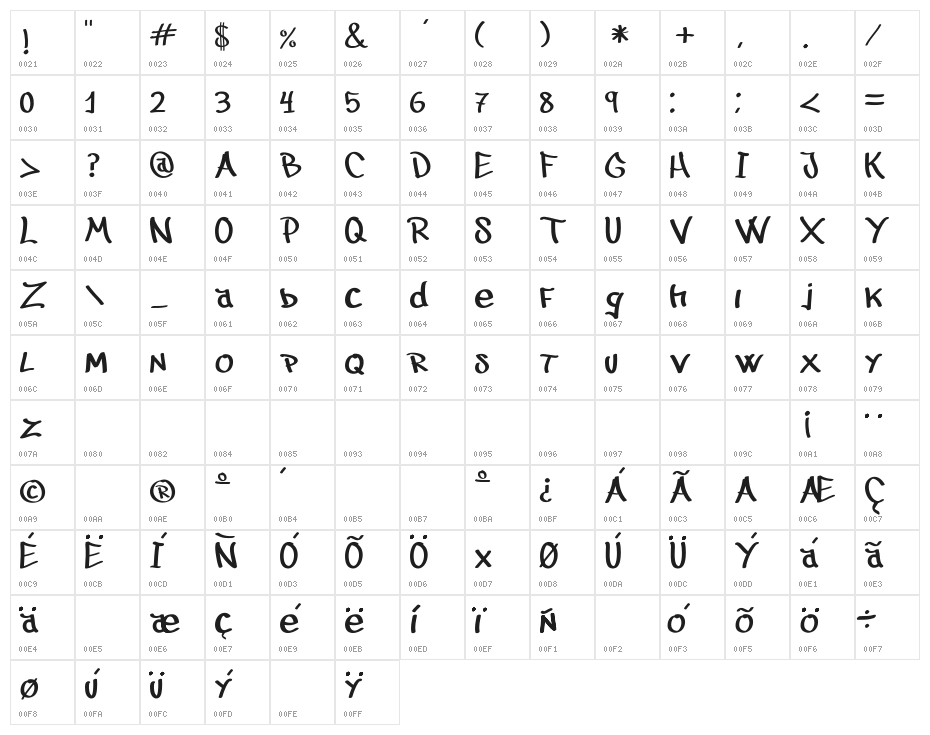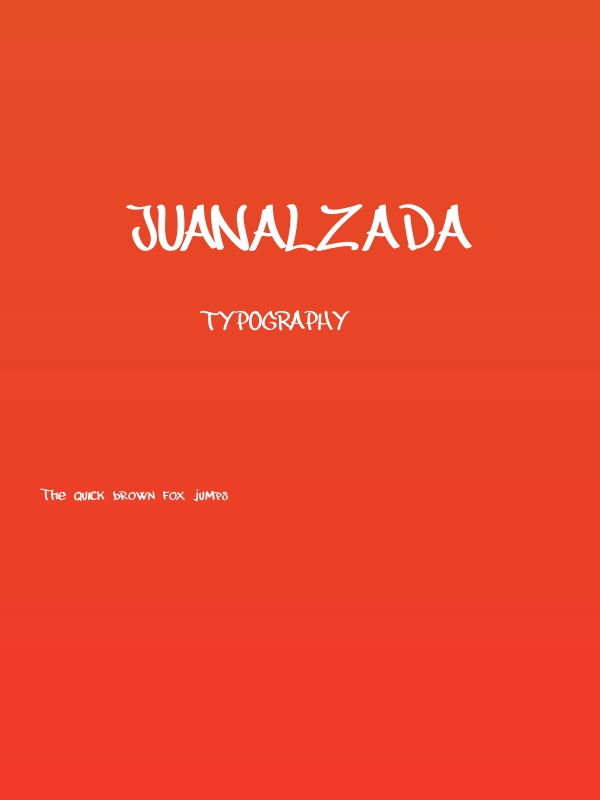
Juanalzada Font
Juanalzada Description
This font features a bold and expressive handwritten style, characterized by its dynamic and fluid strokes. The letters have a playful and informal appearance, with varying thickness that adds a sense of movement and energy. The uppercase and lowercase letters maintain a consistent style, with rounded edges and a slightly slanted orientation, giving it a casual yet artistic feel. The numerals and special characters follow the same design principles, ensuring a cohesive look across all elements. This font is ideal for projects that require a personal touch or a creative flair.
| Proposed Projects | Greeting cards, posters, branding materials, social media graphics, and creative invitations. |